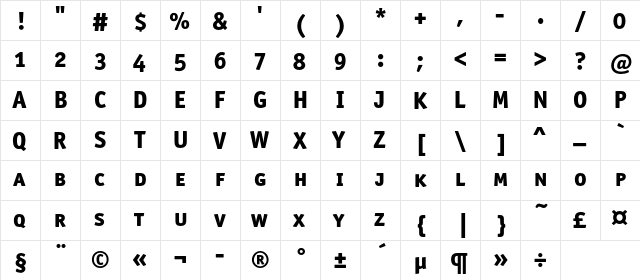
OfficinaSansExtraBoldSCC Regular
Design Context for OfficinaSansExtraBoldSCC Typeface
OfficinaSansExtraBoldSCC takes a measured approach to typography — its balanced proportions and neutral character make it a reliable workhorse for both digital and print work. Its bold stroke weight gives it real presence on the page.